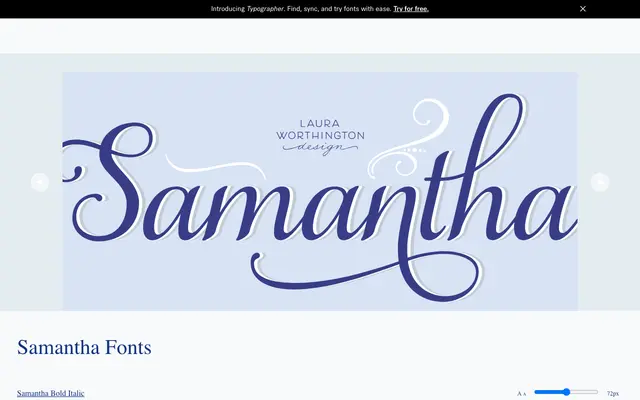
Samantha
A pointed-pen script with slightly condensed proportions and an extensive set of over 1,100 alternates, swashes and ornaments across upright and italic variants.
Built on pointed-pen lettering, Samantha comes in four styles combining regular and bold weights with upright and italic cuts. The family ships with more than 1,100 alternate and swash characters varying in size and complexity, alongside 60 ornaments, 45 catchwords, lining and oldstyle numerals, and 20 stylistic sets. Specially coded for access to all swash and alternate glyphs without specialist design software.
Based explicitly on pointed-pen lettering with flowing letterforms, swash characters and calligraphic alternates, placing it firmly in the script category with a pointed-pen subcategory.